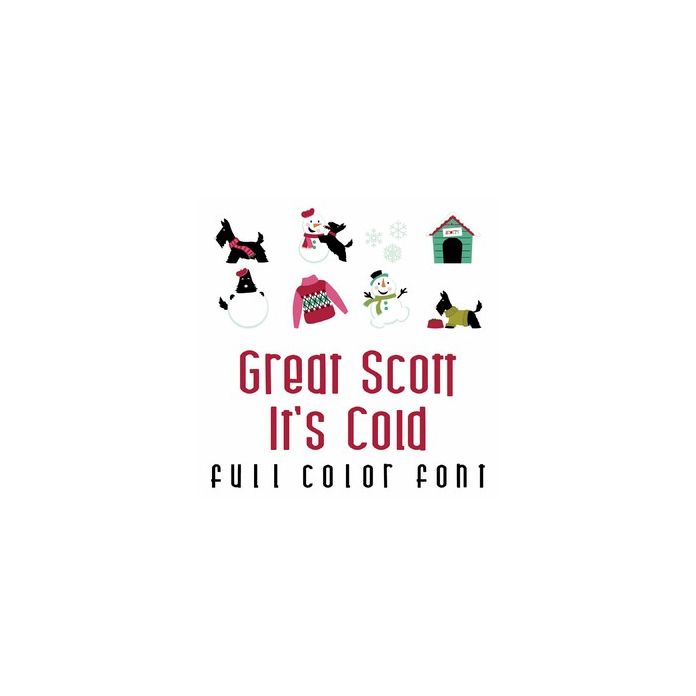
This adorable full-color doodlebat font features adorable Scotty Dogs ready for winter. Perfect for cards, crafts, gifts, decor, scrapbook pages, planner stickers, and more!